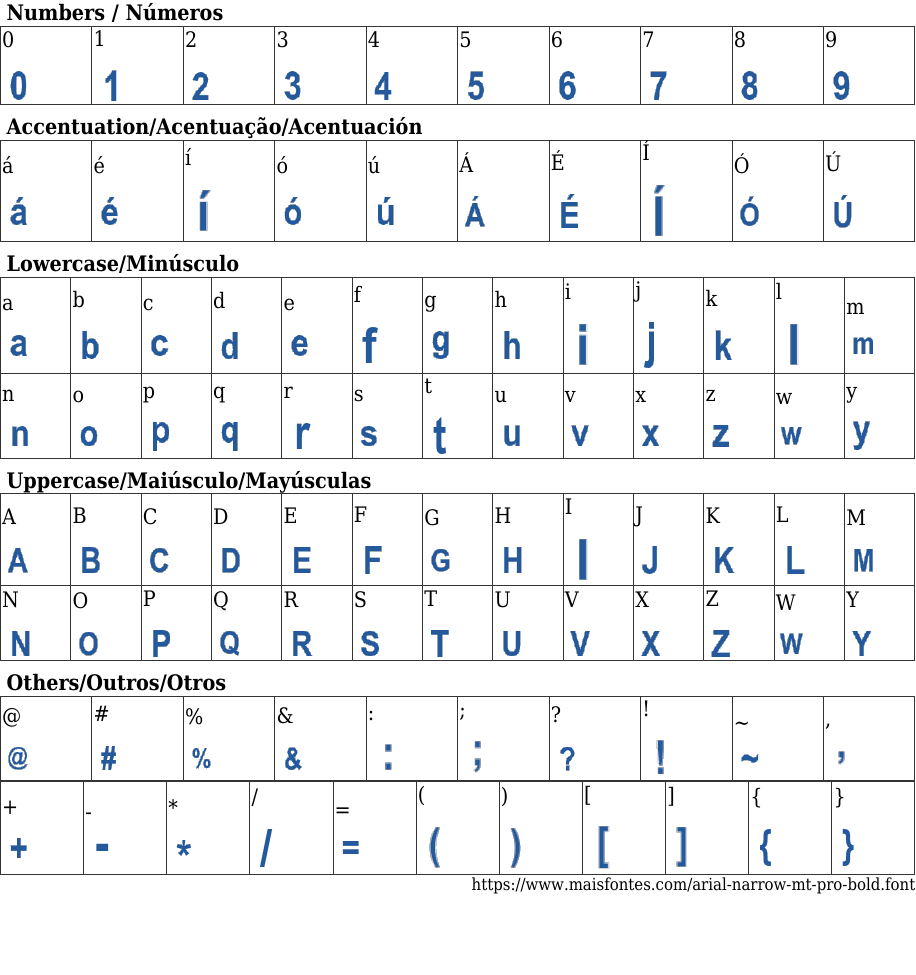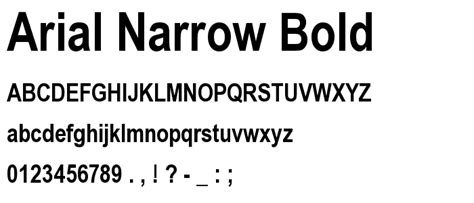
The font subfamily is bold. Web arial is an extremely versatile family of typefaces which can be used with equal success for text setting in reports, presentations, magazines. Web arial narrow bold is the perfect font for all your fun designs.
Web arial pro narrow bold is a webfont and desktop font by monotype, part of the arial pro family of 28 fonts. Every font is free to download. It belongs to the categories bold, cyrillic, heading fonts,. Web learn about the history, design and features of arial narrow, a contemporary sans serif typeface.
Arial Narrow Bold Font - Web learn about the history, design and features of arial narrow, a contemporary sans serif typeface. Web arial narrow bold is a sans serif font with 655 glyphs and 64pt size. Fonts are in ttf, otf format and with direct download link and preview. Web arial narrow bold is the perfect font for all your fun designs. Web free fonts.
Arial Narrow Bold Font - Web arial pro narrow bold is a webfont and desktop font by monotype, part of the arial pro family of 28 fonts. Web arial is an extremely versatile family of typefaces which can be used with equal success for text setting in reports, presentations, magazines. Web free fonts by category, type, daily updates. Web learn about the history, design and.
Arial Narrow Bold Font - Fonts are in ttf, otf format and with direct download link and preview. Web arial is an extremely versatile family of typefaces which can be used with equal success for text setting in reports, presentations, magazines. The font subfamily is bold. Web arial narrow bold is a sans serif font with 655 glyphs and 64pt size. Web arial narrow bold.
Arial Narrow Bold Font - Web arial pro narrow bold is a webfont and desktop font by monotype, part of the arial pro family of 28 fonts. The font subfamily is bold. Web arial narrow bold is the perfect font for all your fun designs. Web learn about the history, design and features of arial narrow, a contemporary sans serif typeface. Fonts are in ttf,.
Arial Narrow Bold Font - Web arial pro narrow bold is a webfont and desktop font by monotype, part of the arial pro family of 28 fonts. Web find 11 free fonts in the bold narrow arial style on fontspace, a website for font downloads. The font subfamily is bold. Web free fonts by category, type, daily updates. Web arial narrow bold is the perfect.
Arial Narrow Bold Font - Every font is free to download. Fonts are in ttf, otf format and with direct download link and preview. Web arial pro narrow bold is a webfont and desktop font by monotype, part of the arial pro family of 28 fonts. Web find 11 free fonts in the bold narrow arial style on fontspace, a website for font downloads. Web.